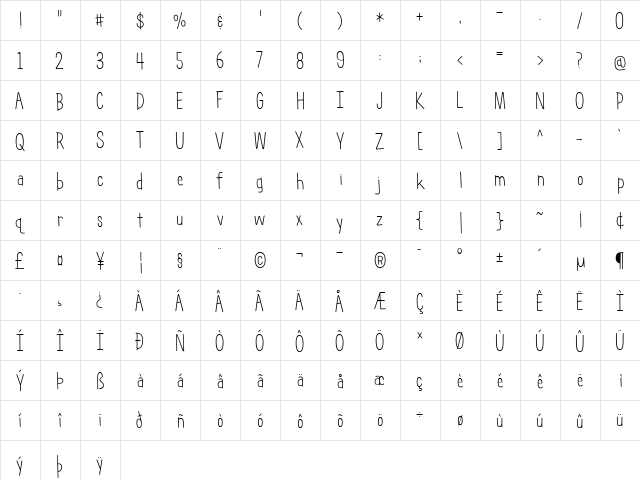
geektastic skinny Regular
| Foundry | Brittney Murphy |
| Designer | Brittney Murphy |
Design Context for geektastic skinny Typeface
geektastic skinny takes a measured approach to typography — its balanced proportions and neutral character make it a reliable workhorse for both digital and print work.